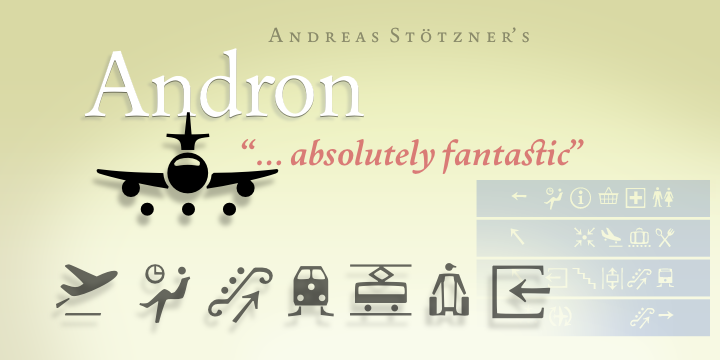
The two fonts Andron Corpus Publix-General and Andron Corpus Publix-Transport offer a selection
of most useful public orientation signs as occurring in public spaces as well as in digital and printed media. The unusual feature of these fonts is a thorough and fancyful typographical detailing, which makes the characters appear more sophisticated and less schematic.
The ductus of these fonts matches the style of Andreas Stötzner’s Andron typeface family. More…
Use these fonts for signage systems, marking, catalogues and brochures. Test the unusual high recognisability – with small sizes and at large distances – and compare to other, more template-like fonts!
Andron Corpus-Publix General
Andron Corpus-Publix Transport